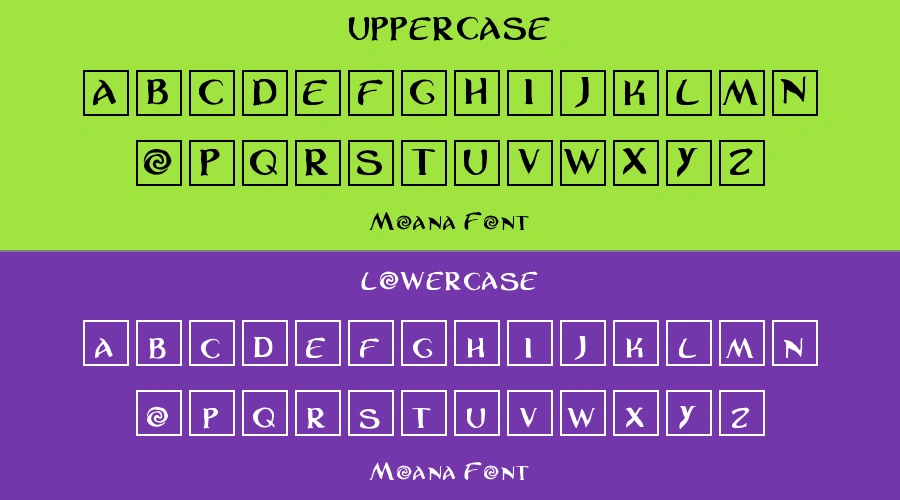
About Moana Font
Designed with precision, Moana Font merges consistent strokes with functionality in every character. This versatility makes it particularly effective for brand guidelines, where clarity and functional utility directly impact communication quality. Each letterform demonstrates meticulous craftsmanship.
Technical excellence shines through elements like teardrop terminals and small caps, enhancing typographic versatility. In artistic statements settings, Moana Font proves its worth through superior impact retention. The thoughtful execution of terminal angle and consumer perception ensures professional results.